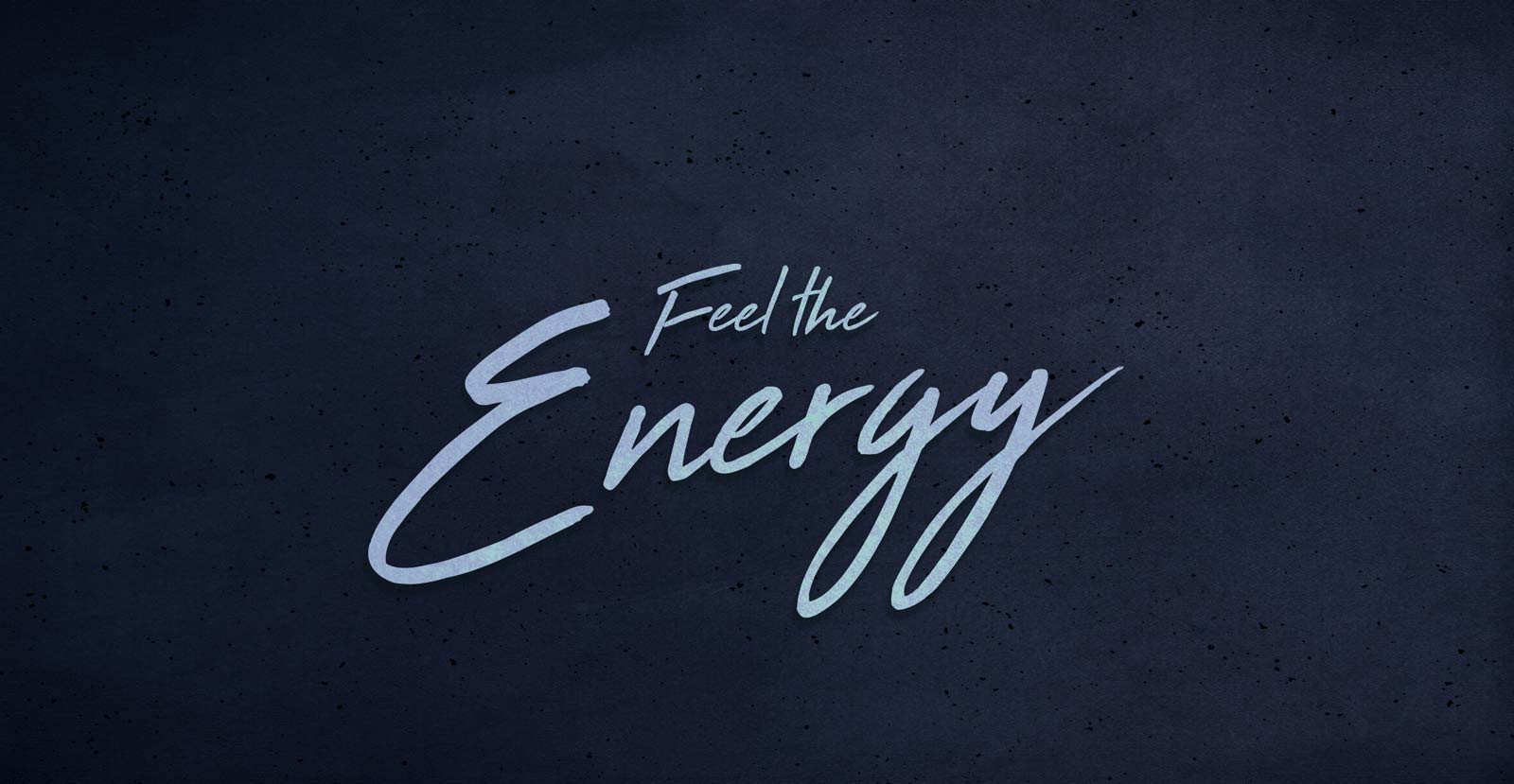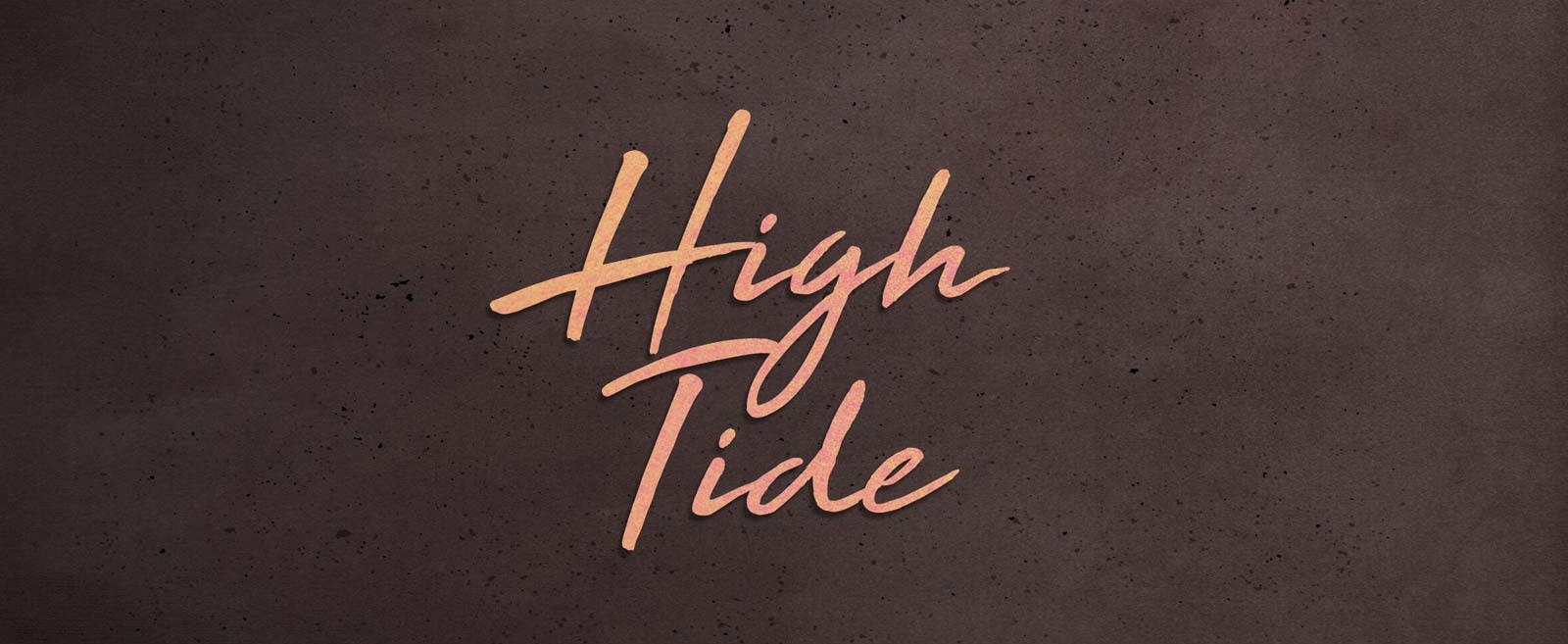
High Tide Font
High Tide Font is available for free download in zip file format. This typeface is highly rated inside the Google fonts and it is also known as lemon milk font. Those are hand-drawn fonts simply supply off an actual non-public touch in your obligations. It’s also one of the most used fonts in the google fonts.
A magistral font this is right for numerous duties that consist of product packaging, label, ebook/cover notice, signal, specific sports activities, and numbers more. Download Most of the people of the designers were using it for his or her very private structures. And some others are taking it as a concept for making new typefaces. It’s miles like the incredibles font.